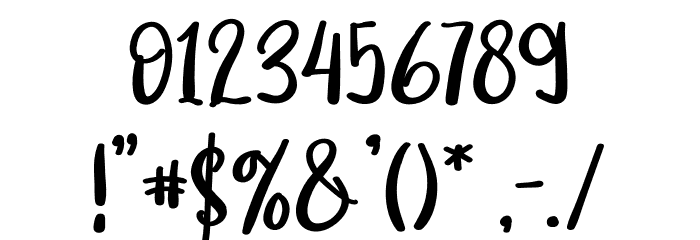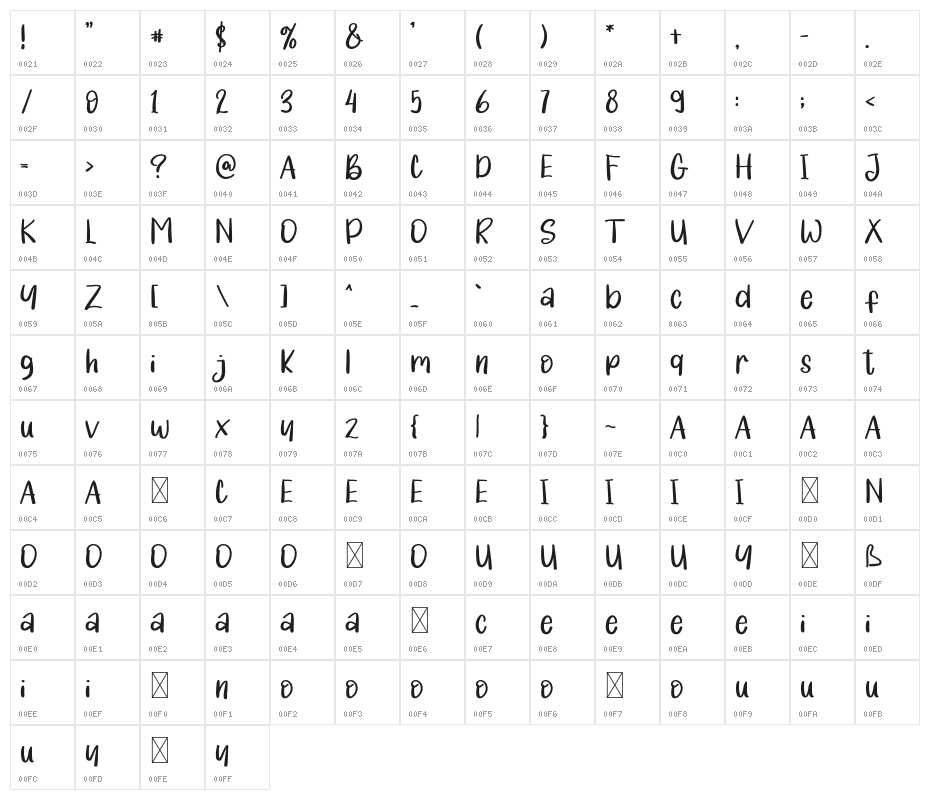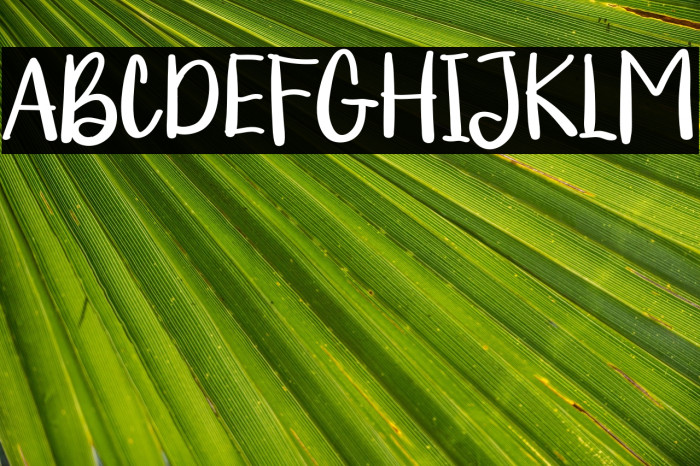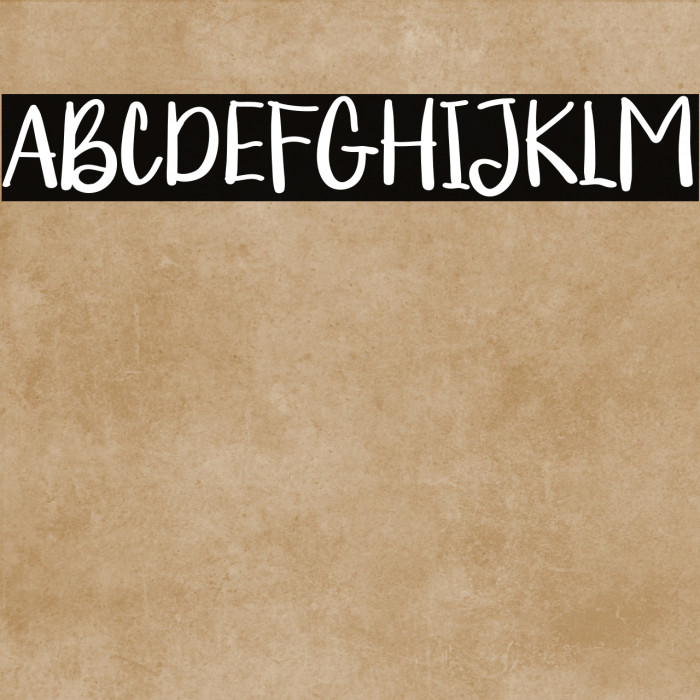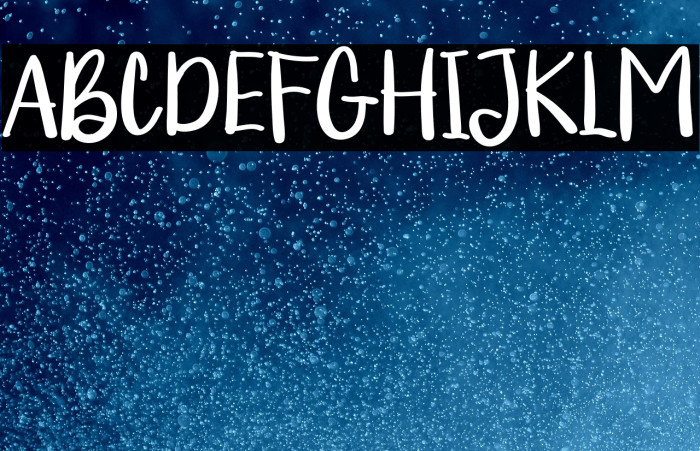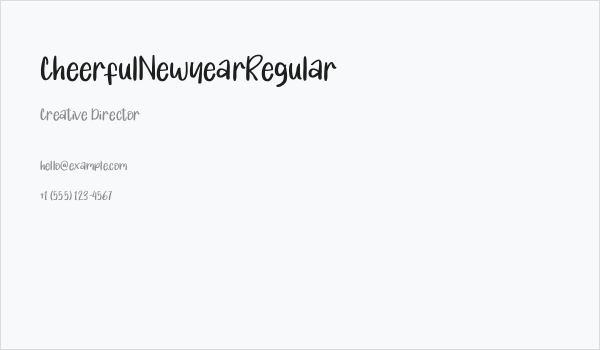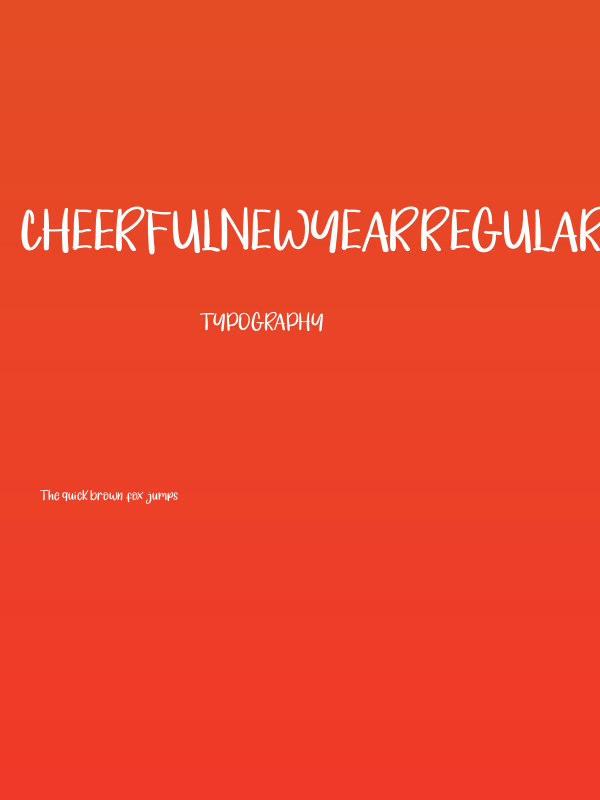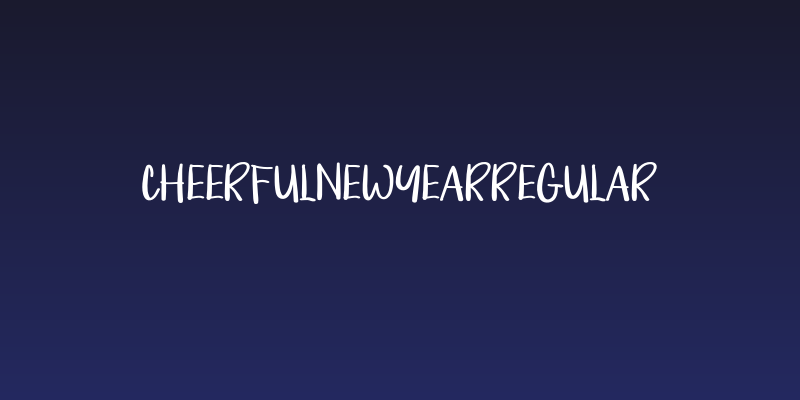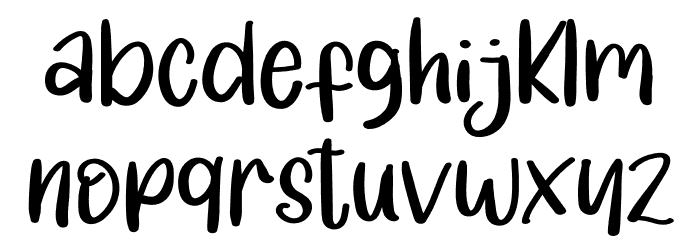
CheerfulNewyearRegular Font
CheerfulNewyearRegular Description
This font exudes a playful and energetic vibe, characterized by its handwritten style with a casual flair. The letters are bold and slightly irregular, giving them a lively and spontaneous appearance. The strokes are smooth and rounded, contributing to a friendly and approachable feel. Uppercase and lowercase letters maintain a consistent style, with a slight slant that adds to the dynamic nature of the font. The numerals and special characters are crafted with the same whimsical touch, ensuring a cohesive look across all text elements. This font is perfect for projects that aim to convey warmth and creativity.
| Use Case | Headlines, Logos, Informal Invitations |
| Proposed Projects | Ideal for greeting cards, children's books, playful branding, and social media graphics. |